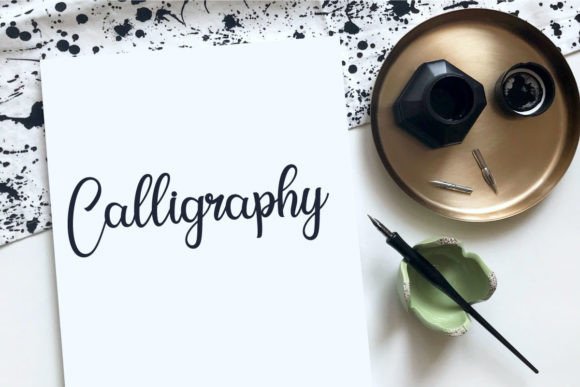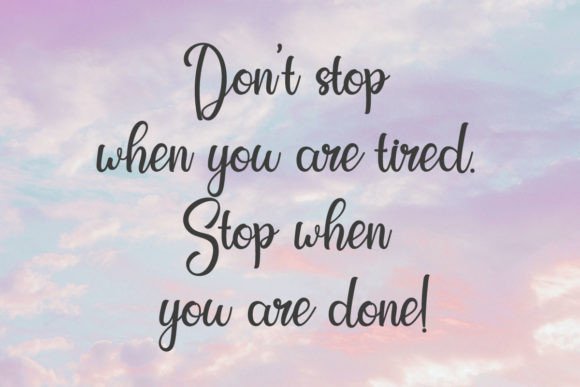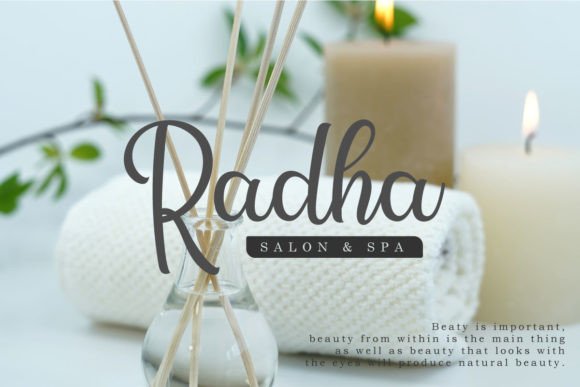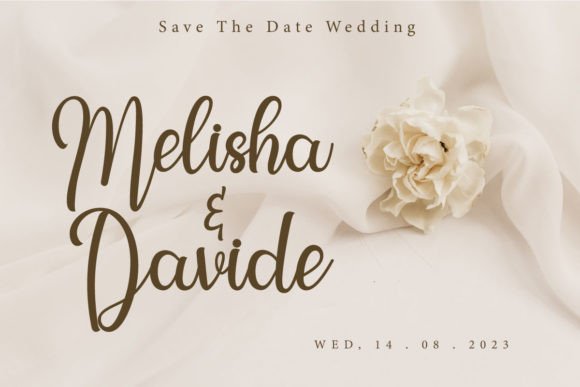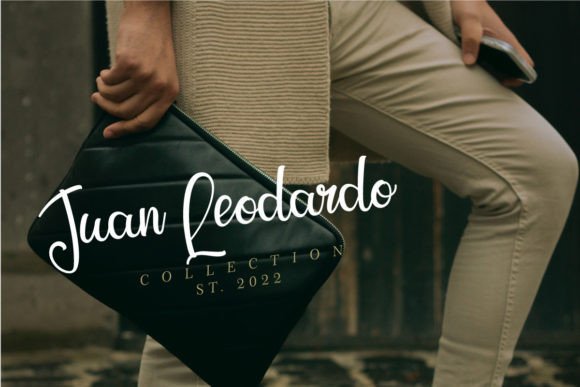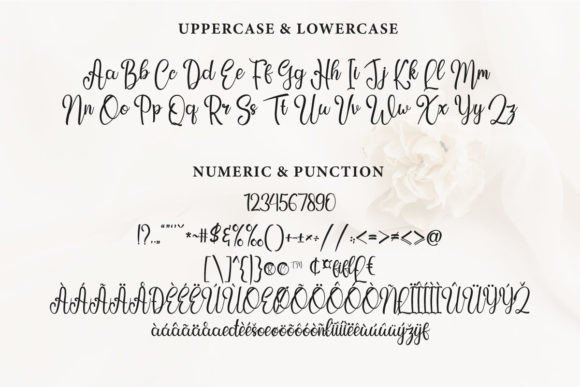
The Perfect Camping Font for Your Creative Projects
Have you ever been in the middle of a design project, and suddenly, you’re stuck on finding the perfect font? I remember a recent experience where a client asked for a custom wedding invitation design, and I was struggling to find a font that captured the essence of a warm, outdoor celebration. That’s when I discovered the beautiful handwritten font, Camping Font, also known as Procreate. In this article, we’ll dive into the world of Camping Font, exploring its features, uses, and some practical tips on how to make the most of it in your designs.
A Personal Review of Camping Font
As a designer, I’m always on the lookout for fonts that can elevate my projects and make them stand out. Camping Font has become a staple in my font library, and here’s why:
• ✨ Beautiful Handwritten Style: Camping Font has a unique, handwritten charm that adds a personal touch to any design.
• ✅ Versatile: It’s perfect for a wide range of projects, from wall displays and wedding invitations to social media posts and product packaging.
• ✅ Easily Readable: Despite its handwritten nature, Camping Font is surprisingly easy to read, even in smaller sizes.
However, like any font, it’s not without its quirks:
• 🤔 Limited Formality: Camping Font is best suited for informal or creative projects. It may not be the best choice for more formal or corporate designs.
• ⚠️ Glyph Limitations: While Camping Font has a range of glyphs and alternates, it may not have the extensive character set you find in more comprehensive fonts.
The Story Behind Camping Font
Camping Font, or Procreate, was inspired by the great outdoors and the art of handwriting. Its creator aimed to craft a font that captures the essence of adventure and freedom, perfect for designers looking to add a personal touch to their work.
Font Name Camping Font
Author Arief Indra Pratama
What type of projects is Camping Font best suited for? Camping Font is perfect for informal and creative projects like wedding invitations, social media posts, and product packaging.
Is Camping Font easy to read? Yes, despite its handwritten nature, Camping Font is surprisingly easy to read, even in smaller sizes.
In conclusion, Camping Font is a beautiful handwritten font that can add a personal touch to your designs. With its versatility, readability, and range of glyphs and alternates, it’s perfect for a wide range of creative projects. Whether you’re a designer, crafter, or creative hobbyist, Camping Font is definitely worth exploring.